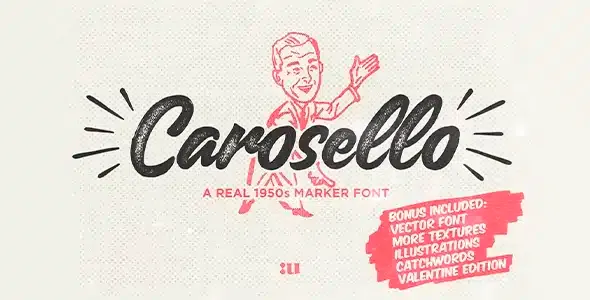
Carosello Premium Font
Truly inspired by vintage advertisements, created with a real marker to preserve and show the typically hand-written imperfections.
This hand-drawn font is highly versatile and allows you to create stunning 1950s handwritten quotes, inspirational sayings, and vintage designs in seconds.
Carosello Premium Font
Truly inspired by vintage advertisements, created with a real marker to preserve and show the typically hand-written imperfections.
This hand-drawn font is highly versatile and allows you to create stunning 1950s handwritten quotes, inspirational sayings, and vintage designs in seconds.